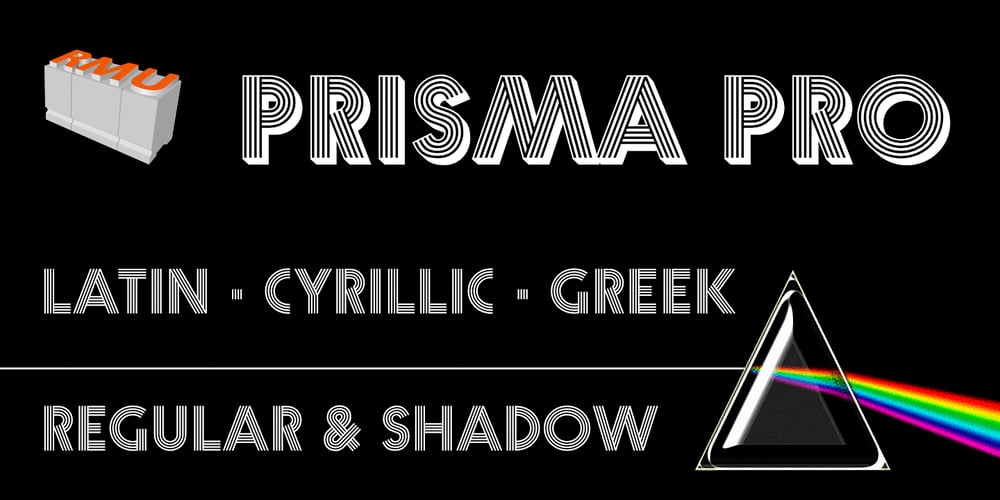
Prisma Pro Font Family was designed by Ralph M. Unger and published by RMU. Prisma Pro contains 2 styles and family package options. In 1931 the Klingspor Foundry in Offenbach am Main released Rudolf Koch’s Prisma which then consisted of the basic capitals and figures only. Now this eye-catching headline and display font was finally revived and well extended. There are actually two versions – Regular and Shadow – and both range from Latin via Cyrillic to Greek.